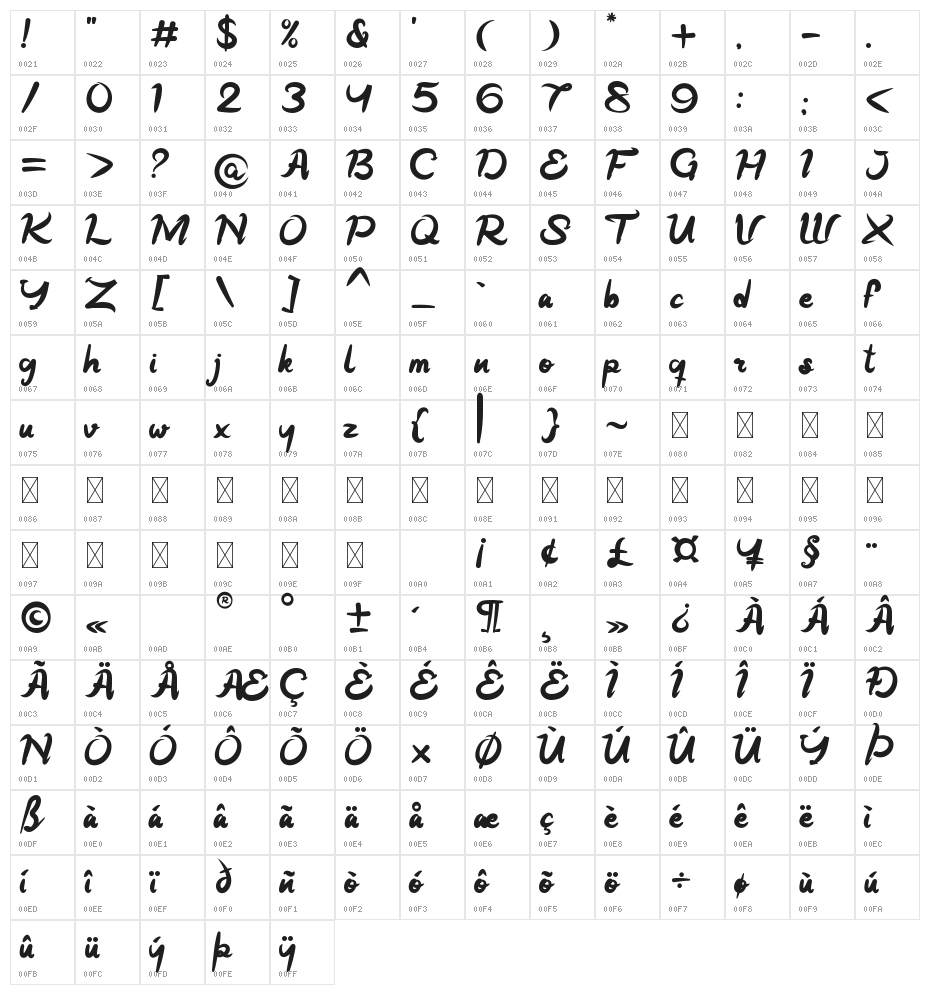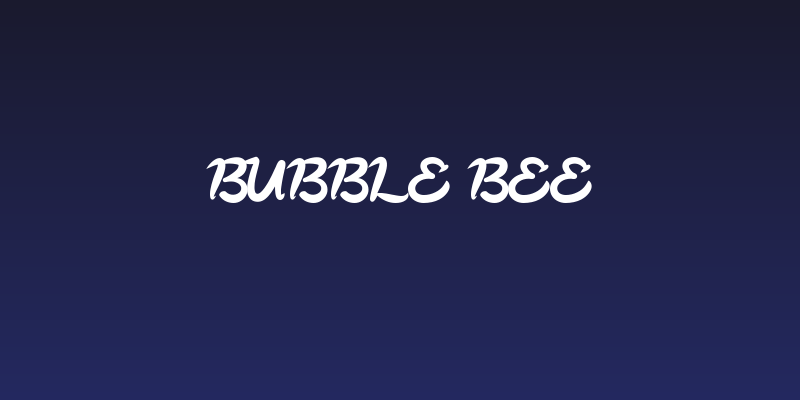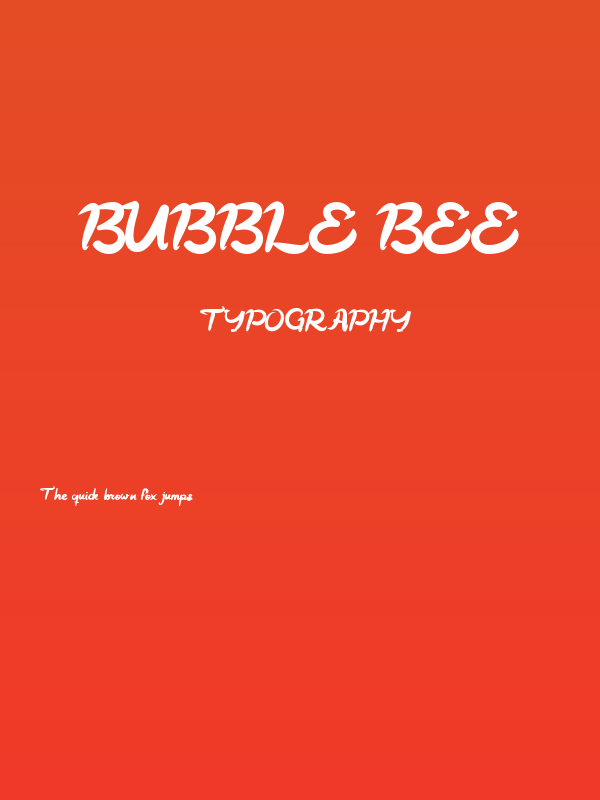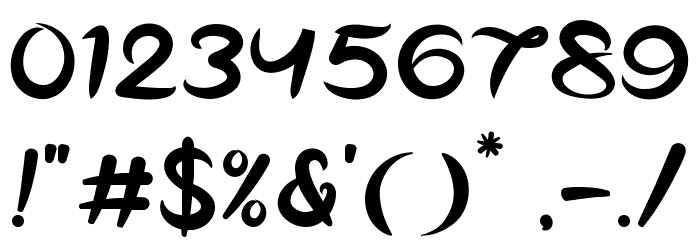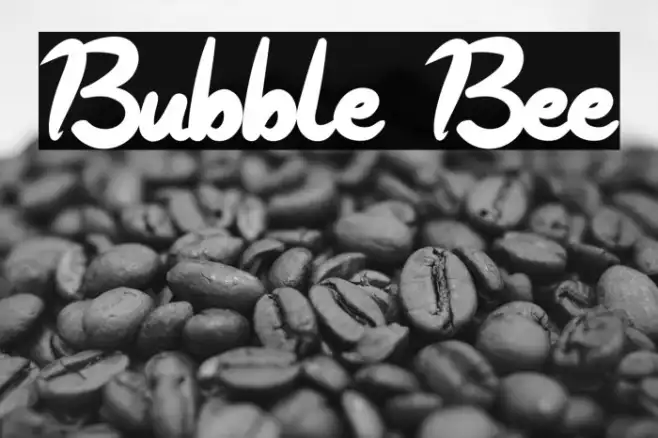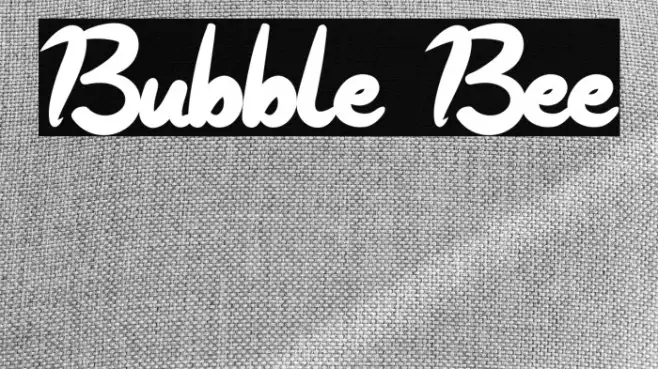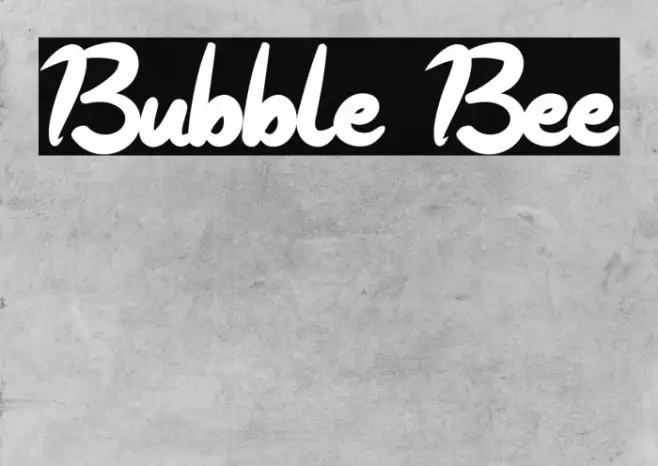
Bubble Bee Font
Bubble Bee Description
This playful and energetic font features a bold, cursive style with a whimsical flair. The letters are rounded and connected, giving it a smooth, flowing appearance. The uppercase characters maintain a consistent height, while the lowercase letters exhibit a charming bounce, adding to the font's lively personality. The numbers are equally bold and rounded, ensuring readability while maintaining the font's overall playful aesthetic. Special characters are designed with the same attention to detail, seamlessly integrating with the rest of the font. This font is perfect for projects that require a fun and informal touch.